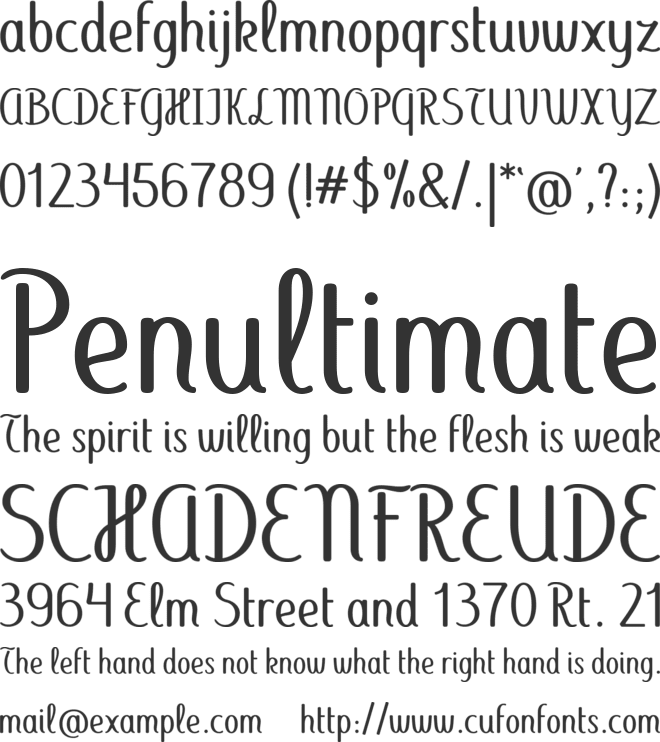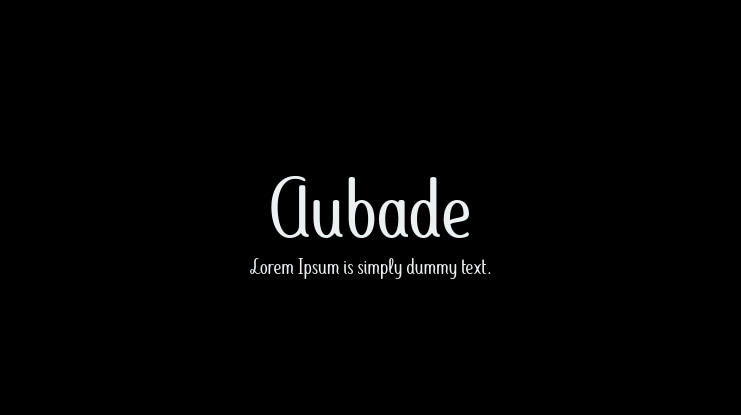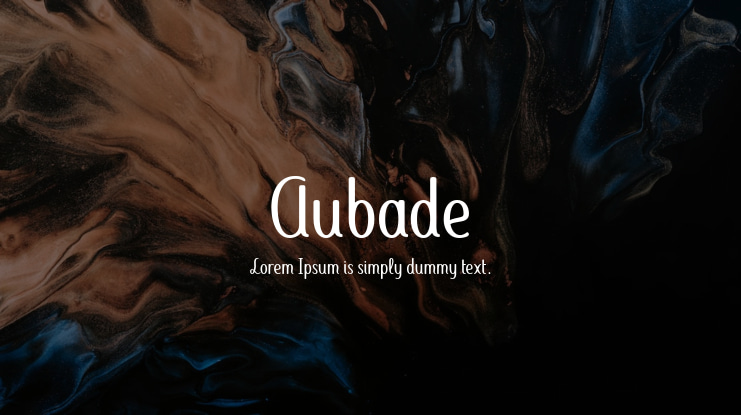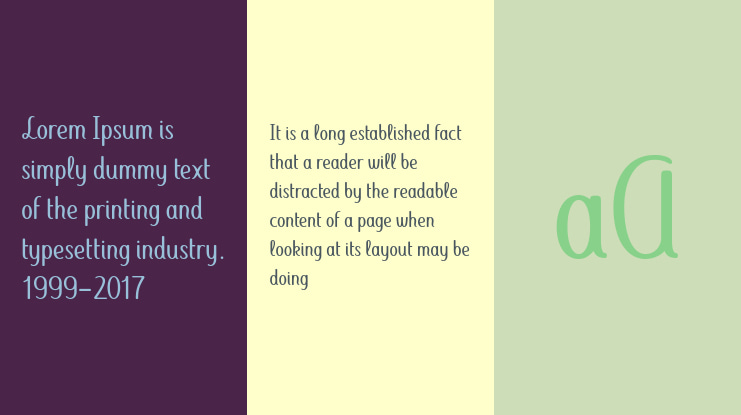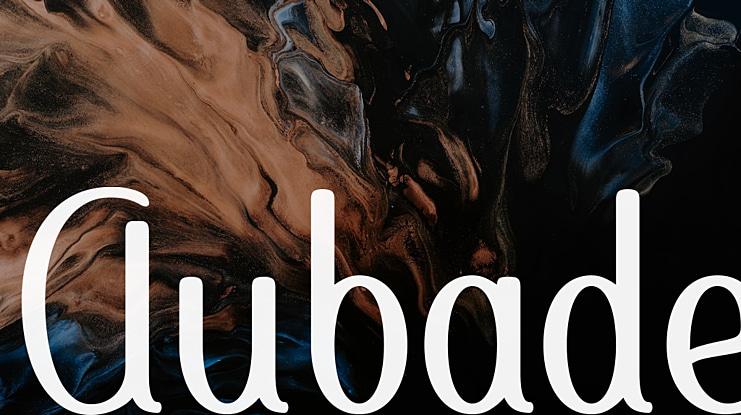
Aubade Font Family
Yves Michel
Aubade is based on my "Abecedary" font but without non-connected letters.
Latin diacritics including Vietnamese, small caps, alternate titles,old style figures...
Aubade est basée sur ma fonte "Abecedary" mais les lettres ne sont pas connectées.
Nombreux diacritiques, Vietnamiens inclus, petites capitales, chiffres "old style"...